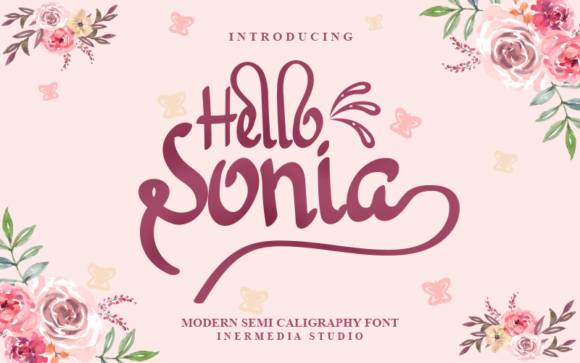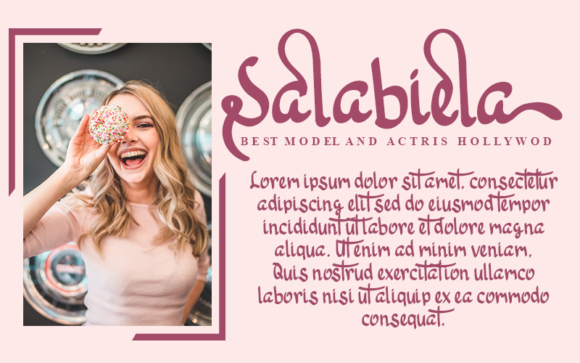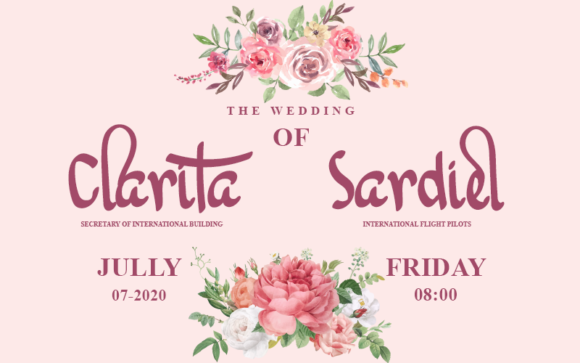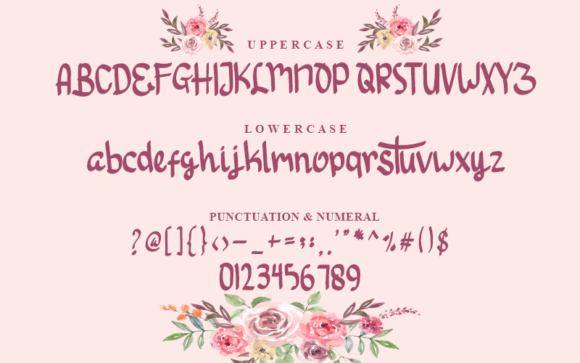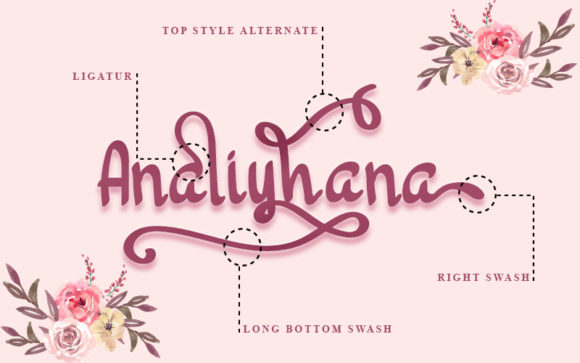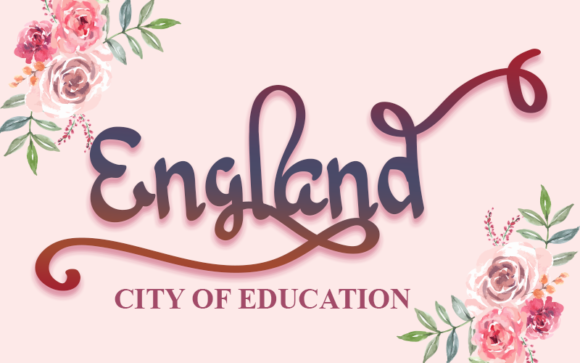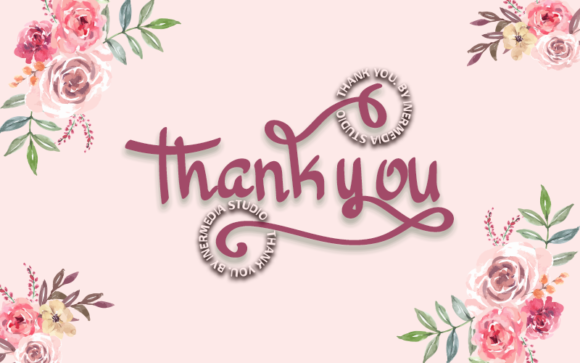
Discovering the Magic of Hello Sonia Font
Have you ever stumbled upon a font that makes you feel like you’ve discovered a hidden treasure? For me, that moment came when I first laid eyes on the Hello Sonia Font. Its elegant and charming vibe instantly sparked my creativity, and I couldn’t wait to dive in and explore its possibilities.
Hello Sonia Font is a beautiful handwritten font that pays homage to classic calligraphy. With its varying baseline, smooth lines, and gorgeous glyphs, it’s the perfect choice for designers looking to add a touch of sophistication to their projects. Whether you’re working on a wedding invitation, a menu, or a logo, Hello Sonia Font is sure to bring a unique and stylish flair to your designs.
What makes Hello Sonia Font truly valuable is its stunning alternates, which offer endless possibilities for customization and creativity. With Hello Sonia Font, you’ll be able to craft truly unique and personalized designs that will leave a lasting impression on your audience.
- Unique Characteristic: Hello Sonia Font features a unique, elegant script design with a modern twist, making it ideal for creative and artistic projects.
Hello Sonia Font Review
I recently had the chance to work with the Hello Sonia Font, and I must say, it’s an interesting addition to any designer’s toolkit. ✨ One of the things I like about this font is its versatility – it can be used for both personal and professional projects, and it looks great in various contexts. The font is also highly customizable, making it a great choice for designers who want to add a unique touch to their work.
- Unique style**: The Hello Sonia Font has a distinctive style that’s sure to stand out in any design. ✨
- Highly customizable**: The font is available in a range of weights and styles, making it easy to adapt to different design needs.
However, there are a few limitations to consider. ⚠️ For one, the font may not be suitable for body text due to its ornate design. Additionally, some users may find the font’s style too bold or overpowering. Overall, I would recommend the Hello Sonia Font for designers who are looking to add a touch of elegance and sophistication to their work.
Overall, I would give the Hello Sonia Font 4 out of 5 stars. While it’s not perfect, it’s a great choice for designers who want to add a unique touch to their work. With a little bit of creativity and experimentation, the Hello Sonia Font can be a valuable addition to any designer’s toolkit.
Tips for Getting the Most Out of Hello Sonia Font
Use Hello Sonia Font to add a touch of elegance and sophistication to your designs.
Combine Hello Sonia Font with other fonts to create a unique and eye-catching look.
Use Hello Sonia Font for:
Business cards and marketing materials.
Personal branding and social media graphics.